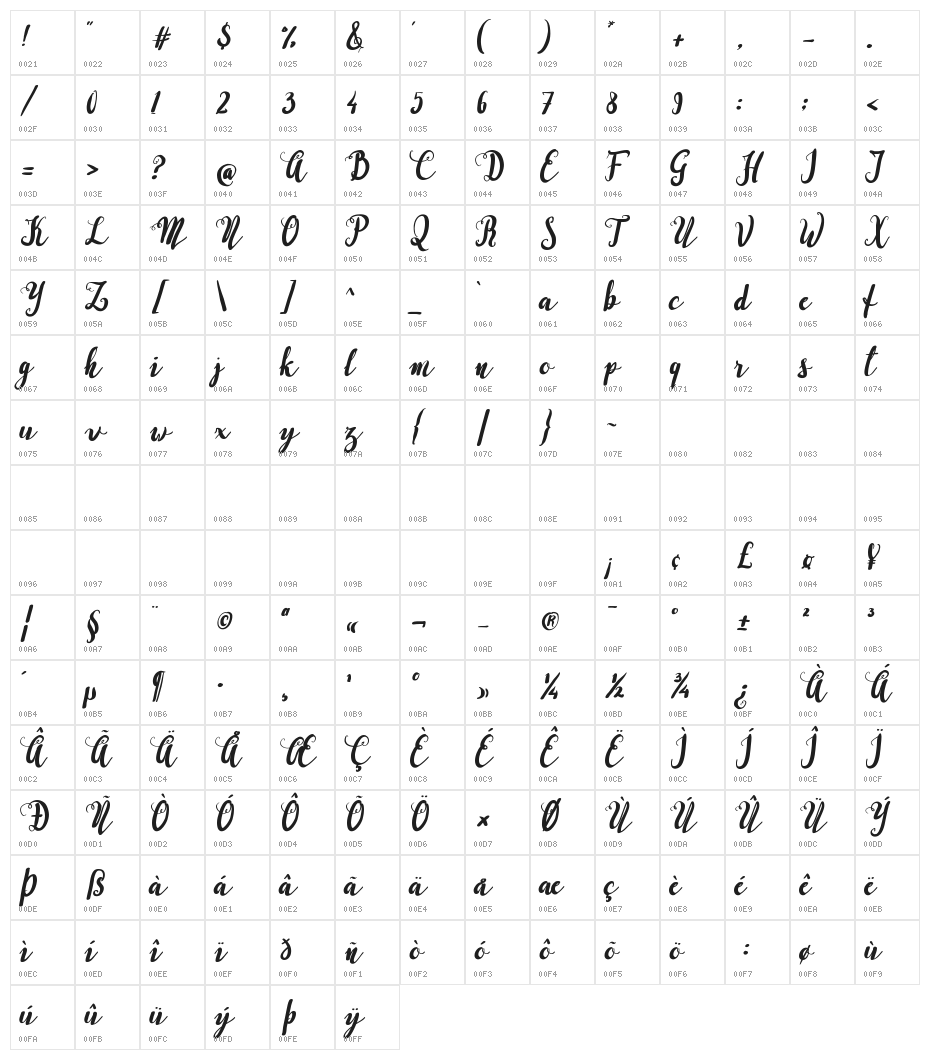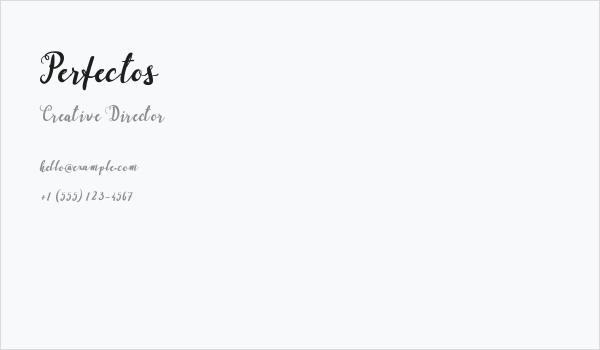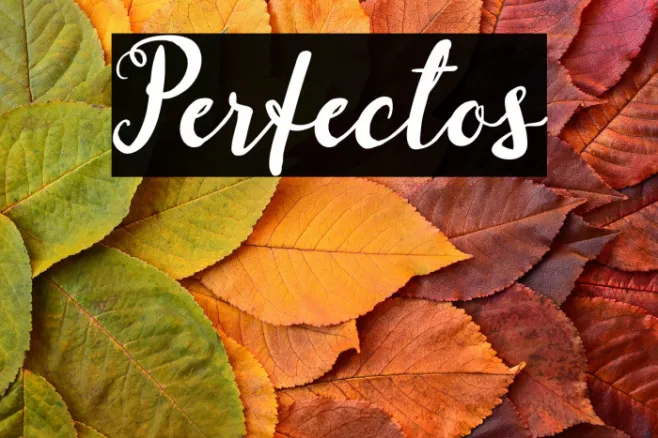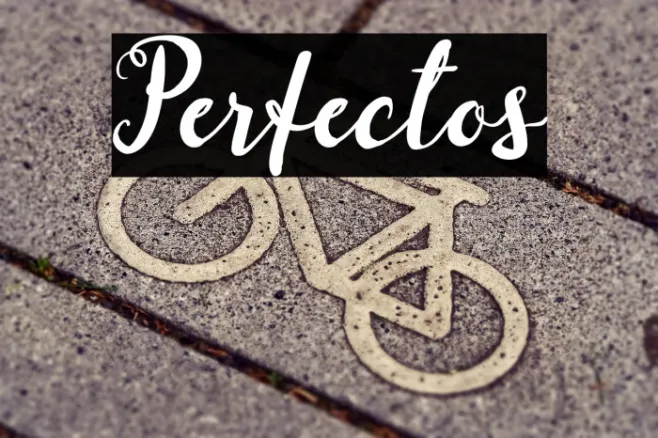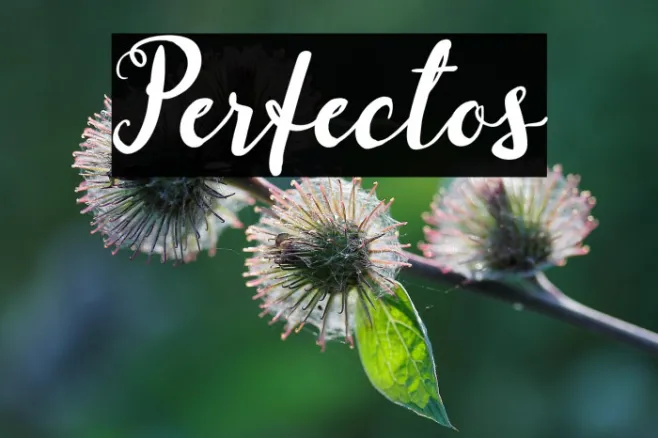
Perfectos Font
Perfectos Description
This font features an elegant and flowing script style with a distinct calligraphic influence. The uppercase letters are adorned with decorative swashes and flourishes, adding a sense of sophistication and flair. The lowercase letters maintain a smooth and connected appearance, enhancing readability while retaining an artistic touch. The numerals are styled to match the overall script aesthetic, ensuring consistency throughout. Special characters are also designed with the same attention to detail, making this font versatile for various creative applications. Its bold strokes and high contrast between thick and thin lines give it a dynamic and eye-catching presence.
| Proposed Projects | Ideal for wedding invitations, branding, greeting cards, and elegant packaging designs. |